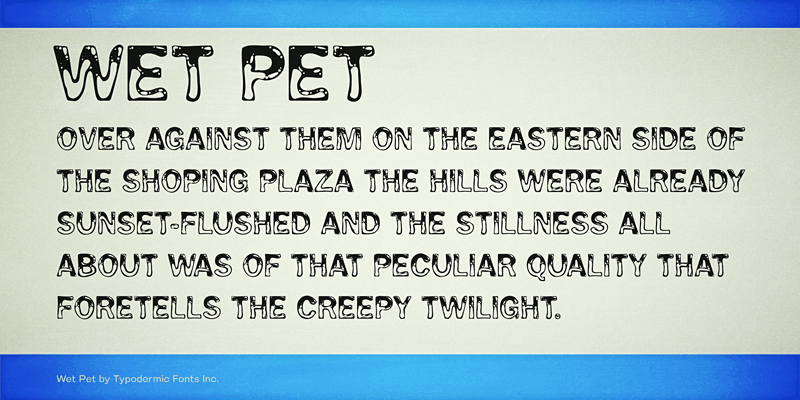
Wet Pet evokes the feeling of moist domestic animals. This font includes a license that allows free commercial use: sometimes referred to as a desktop license. This allows you to install the font on a computer and use it to create posters, web graphics, game graphics, t-shirts, videos, signs, logos and more. Read the license agreement for details. If you'd like to embed this font in an app, ebook, on the web or anything that's not covered by the desktop license agreement, visit the link below. You'll find distributors who offer different types of licenses or you can contact me for help. http://typodermicfonts.com/wet-pet/ |